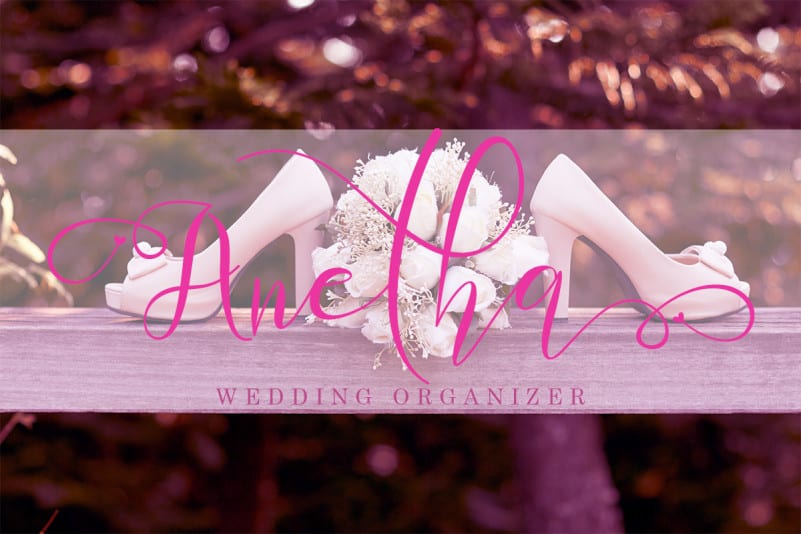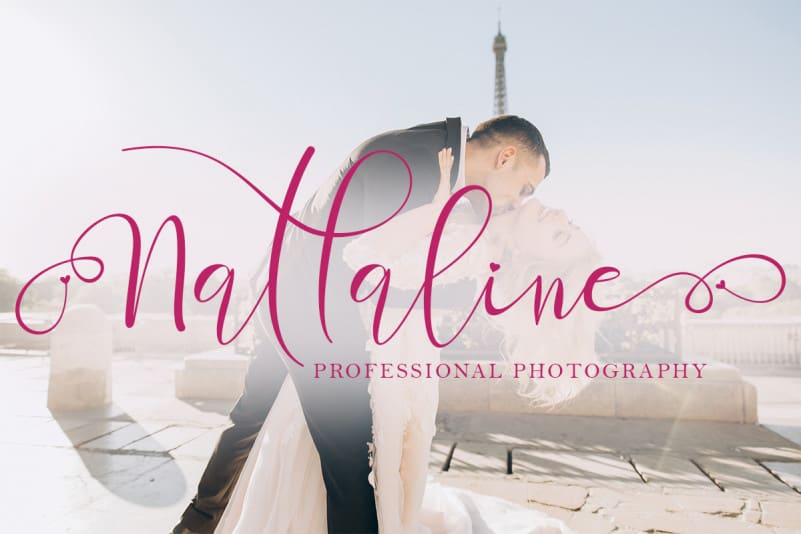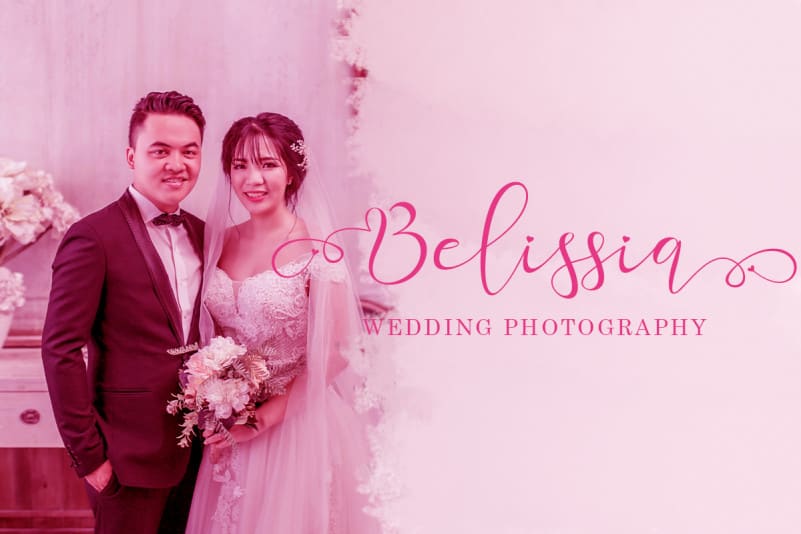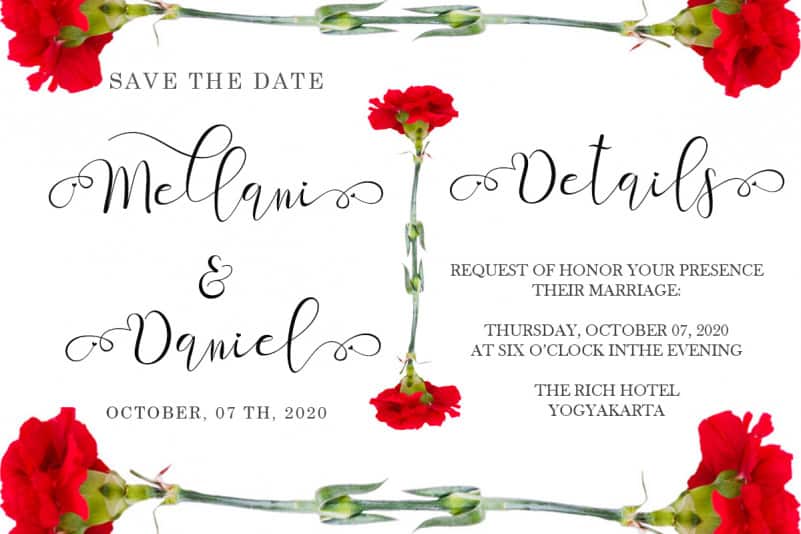
Sherllia Calligraphy Font
This font is named Sherllia Calligraphy Font. Sherllia is a very beautiful font and is made with great love. This font can make your work more beautiful and elegant. This font is perfect for marketing your products, making quotes, weddings, invitation cards, logos, branding and status updates on social media. Can also be used to beautify your beautiful moments.